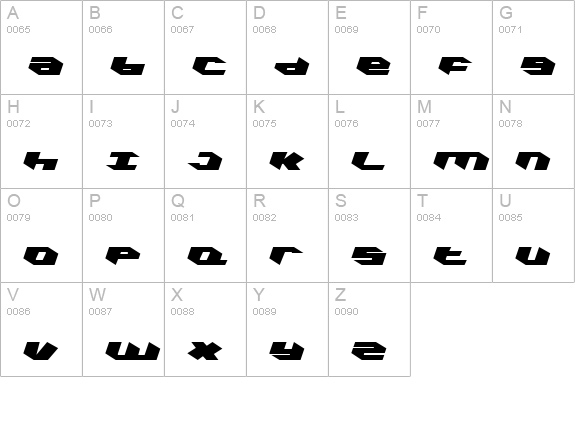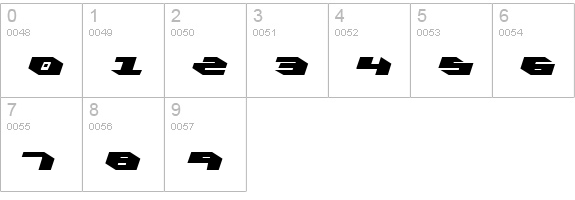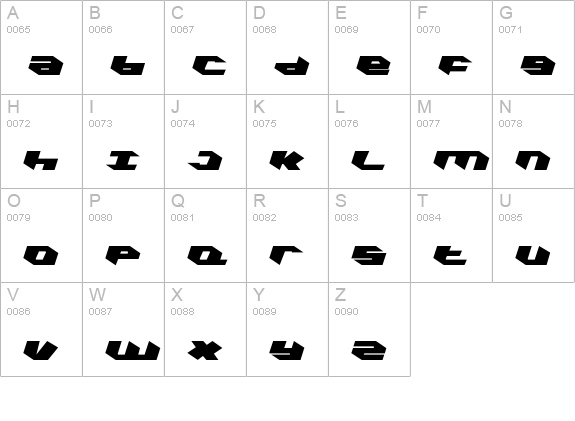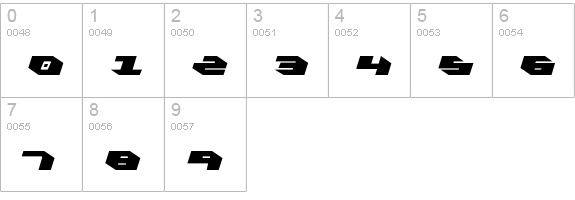
Kubrick Condensed Leftalic is a distinctive, condensed-width variant in the Kubrick typeface family \xE2\x80\x94 well suited to design and typography projects.
Kubrick Condensed Leftalic font is a sleek and modern typeface that exudes sophistication and elegance. Its italicized style adds a touch of flair and dynamism to any design project. The condensed proportions make it perfect for fitting more text in limited spaces without sacrificing readability. This versatile font is ideal for a wide range of applications, from editorial layouts to branding and packaging designs. Its clean lines and sharp angles give it a contemporary and stylish look that will make your text stand out. Best of all, Kubrick Condensed Leftalic font is available for free download at FontsMarket.com. Whether you're a designer looking to add a touch of sophistication to your projects or a business owner in need of a sleek and modern font for your branding, this typeface is sure to impress. Download it today and elevate your designs with Kubrick Condensed Leftalic font.